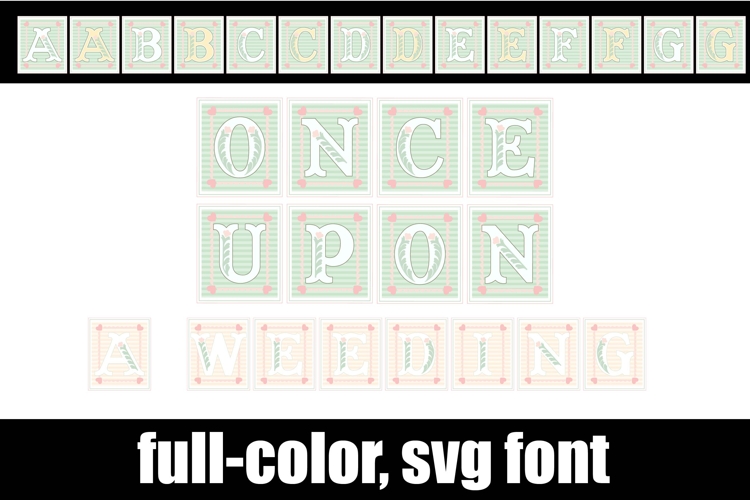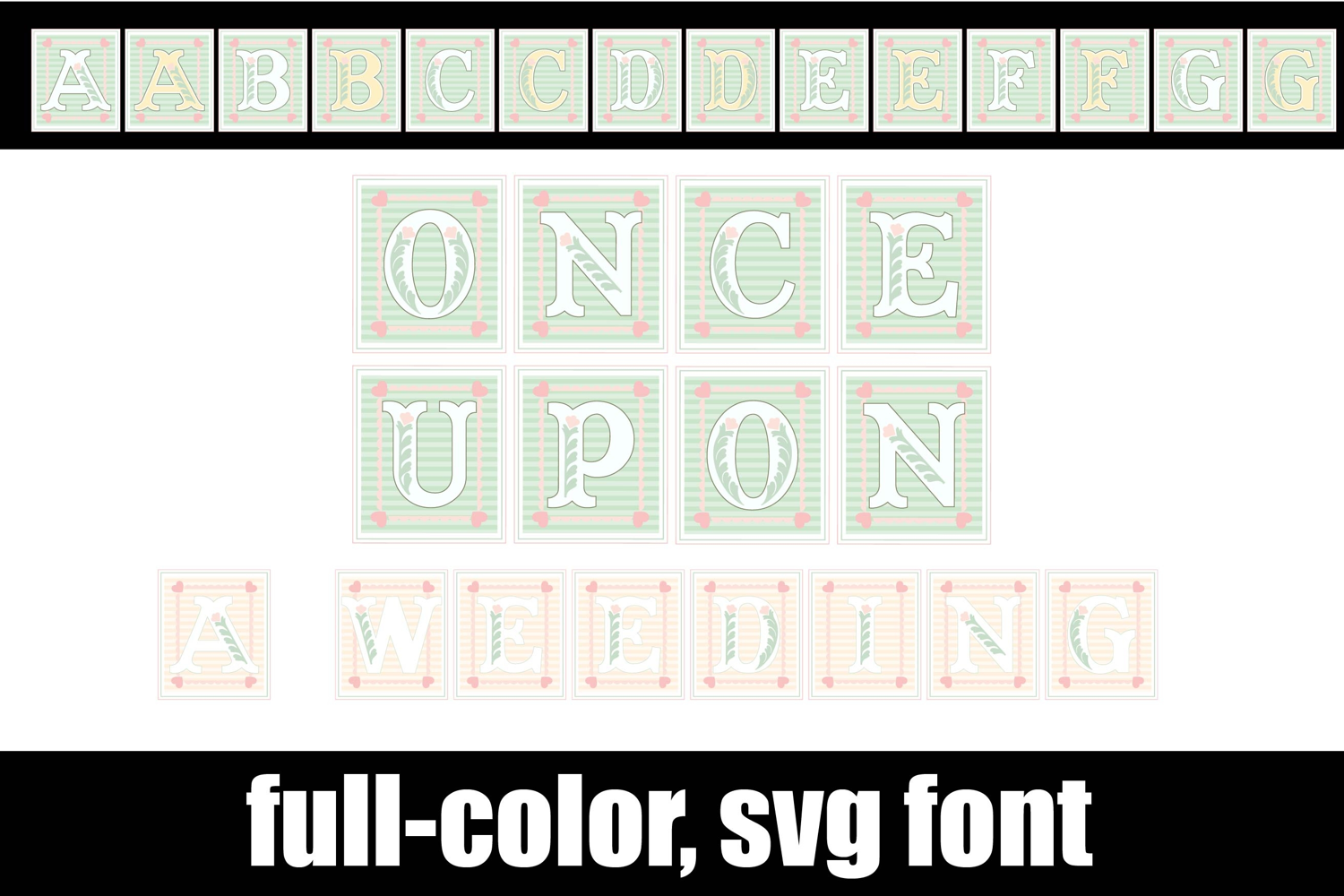
Once Upon a Wedding Color Font
This full-color, serif font sports pastel florals in striped boxes. There is an alt case of additional colors of each letter that you can access through your system's character map.